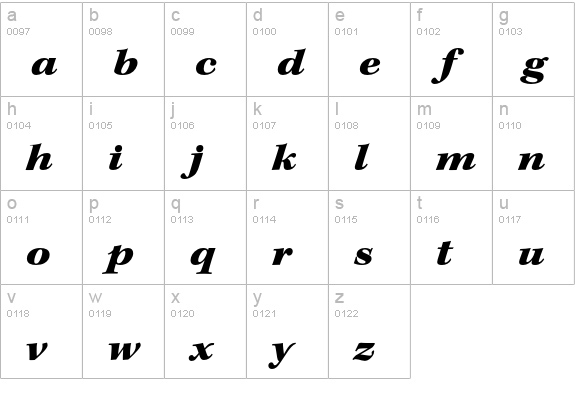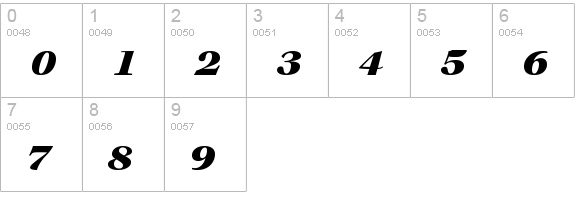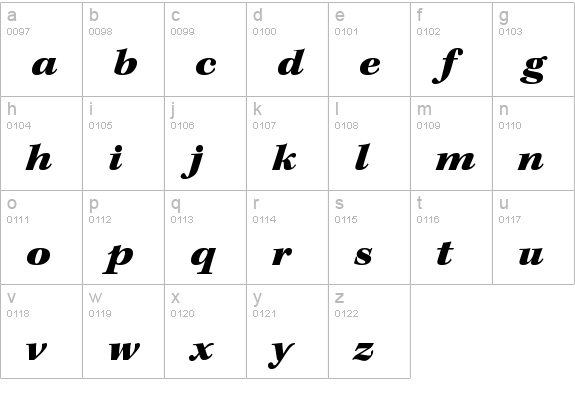
Kepler Std Black Extended Italic Font Details
Kepler Std Black Extended Italic is a maximum-weight, dramatic, extended-width, italic variant in the Kepler typeface family \xE2\x80\x94 well suited to maximum-impact headlines, posters, and packaging.
Kepler Std Black Extended Italic is a stunning and bold font that exudes elegance and sophistication. Its sleek and elongated letterforms command attention and make a powerful statement. The extended and italicized nature of this typeface adds a touch of drama and flair, making it perfect for headlines, titles, and branding materials. The richness and depth of Kepler Std Black Extended Italic make it a versatile choice for a wide range of design projects. Whether used in print or digital media, this font effortlessly adds a touch of modernity and professionalism. What makes Kepler Std Black Extended Italic even more enticing is that it is available for free download at FontsMarket.com. This means that designers and creatives can easily access this remarkable font without any cost, making it an excellent choice for those who are looking to enhance their designs without breaking the bank. The fluidity and grace of Kepler Std Black Extended Italic make it a favorite among designers who want to create eye-catching and visually appealing designs. Its bold and italicized appearance adds a sense of excitement and energy, making it the perfect choice for projects that require a strong visual impact. In summary, Kepler Std Black Extended Italic is a captivating and dynamic font that is freely available for download at FontsMarket.com. Its bold and extended letterforms, coupled with its italicized style, make it an excellent choice for designers who want to create visually stunning and impactful designs. Whether used in headlines, titles, or branding materials, this font is sure to make a lasting impression.